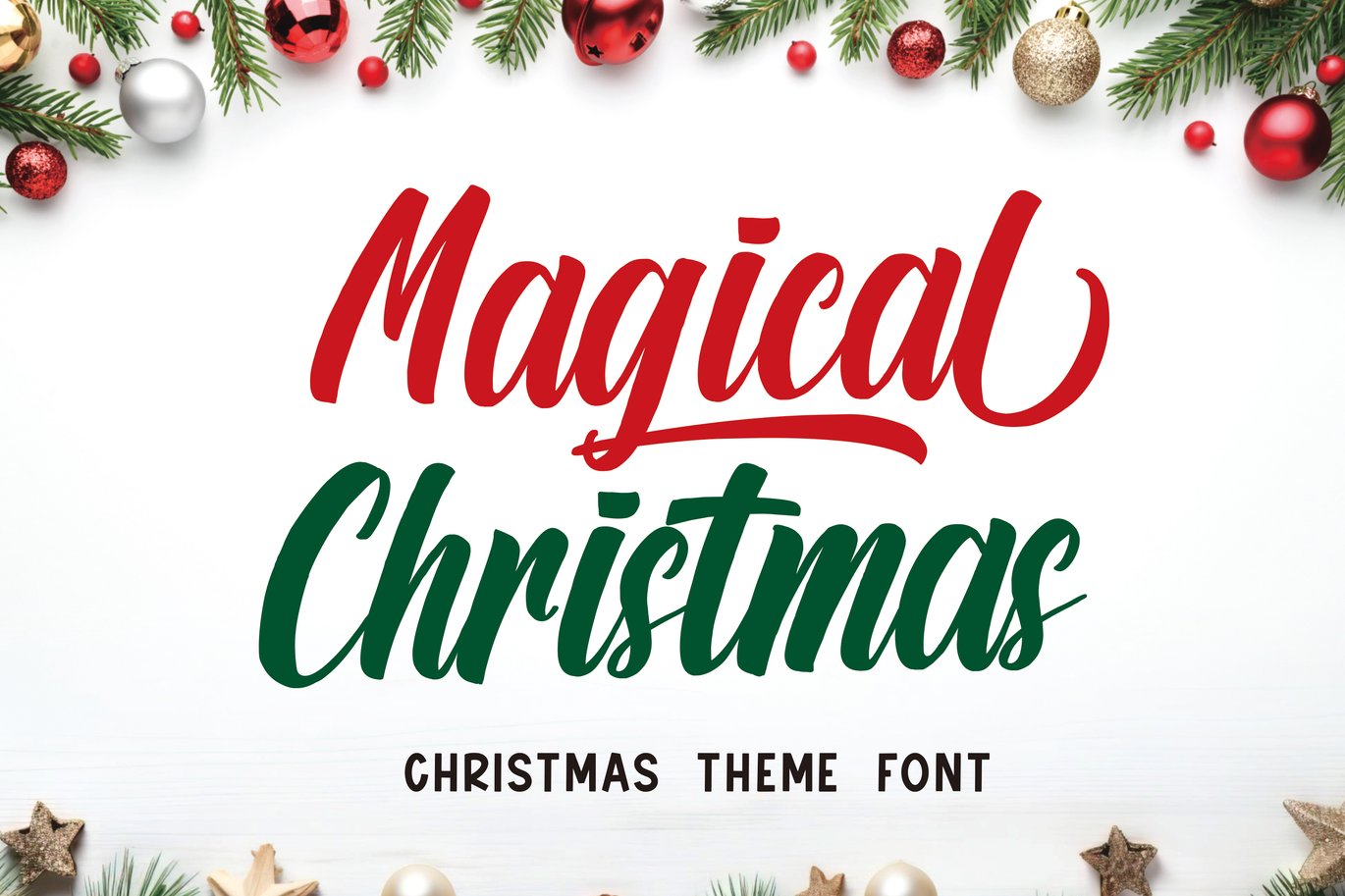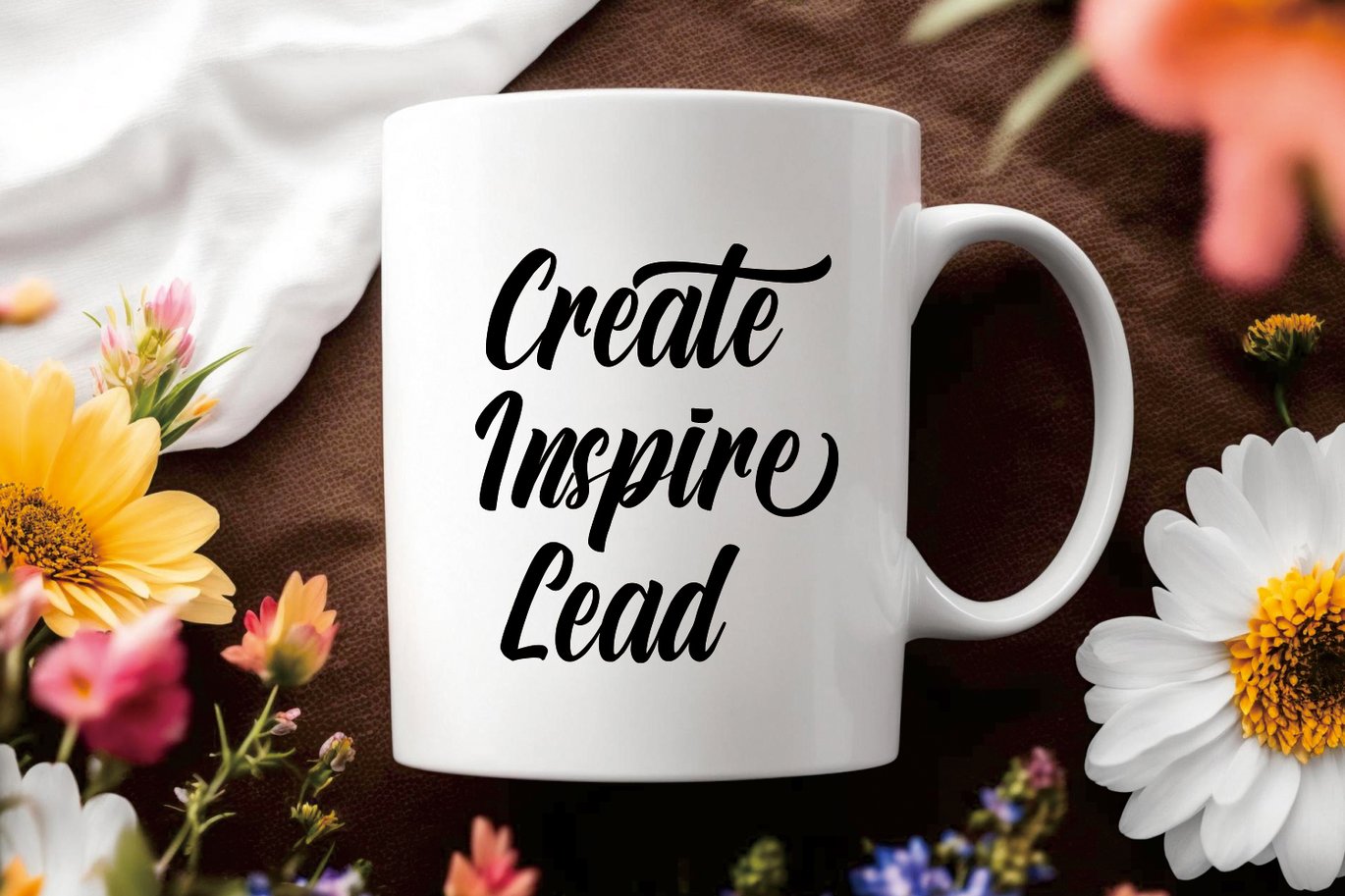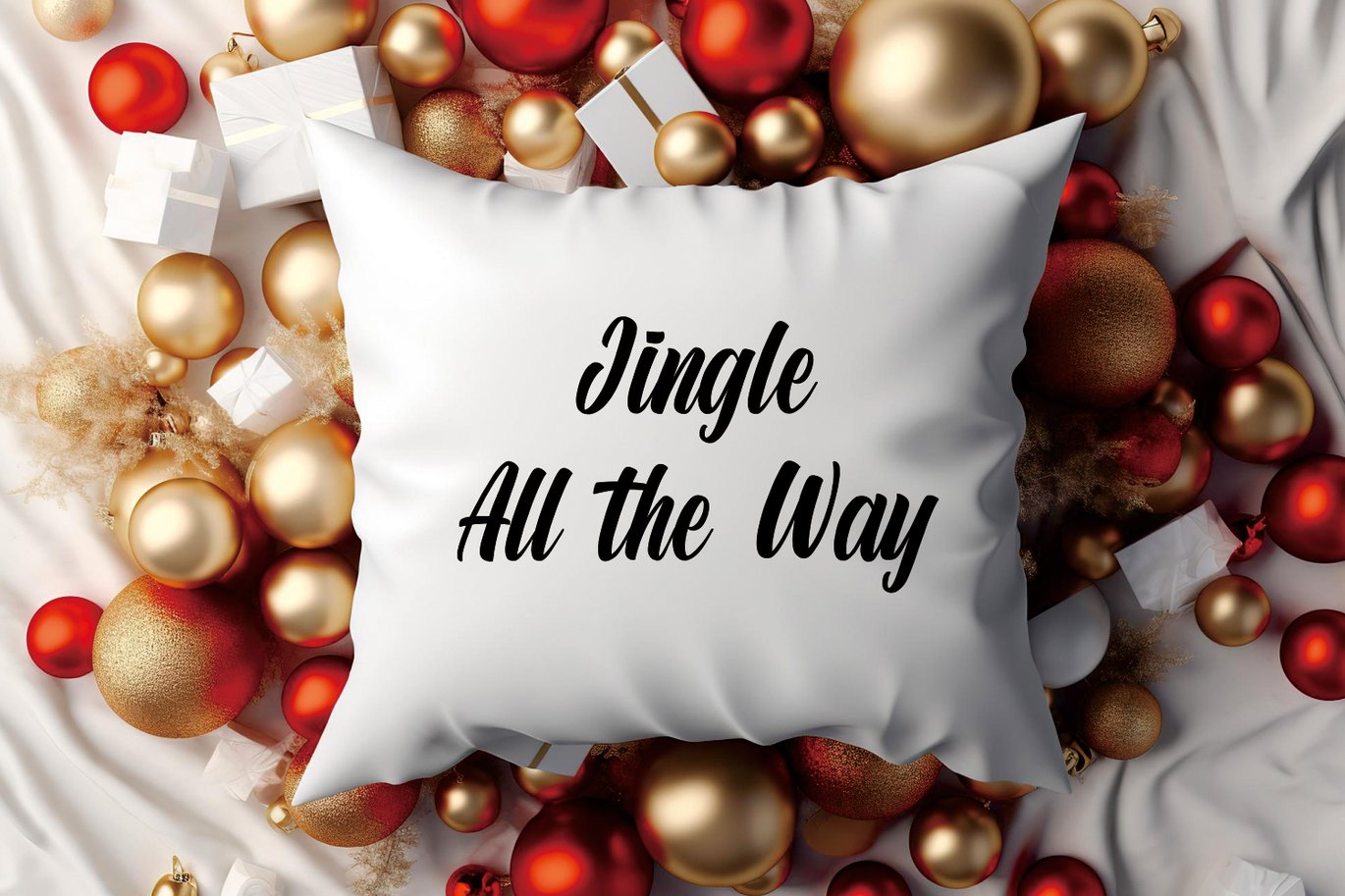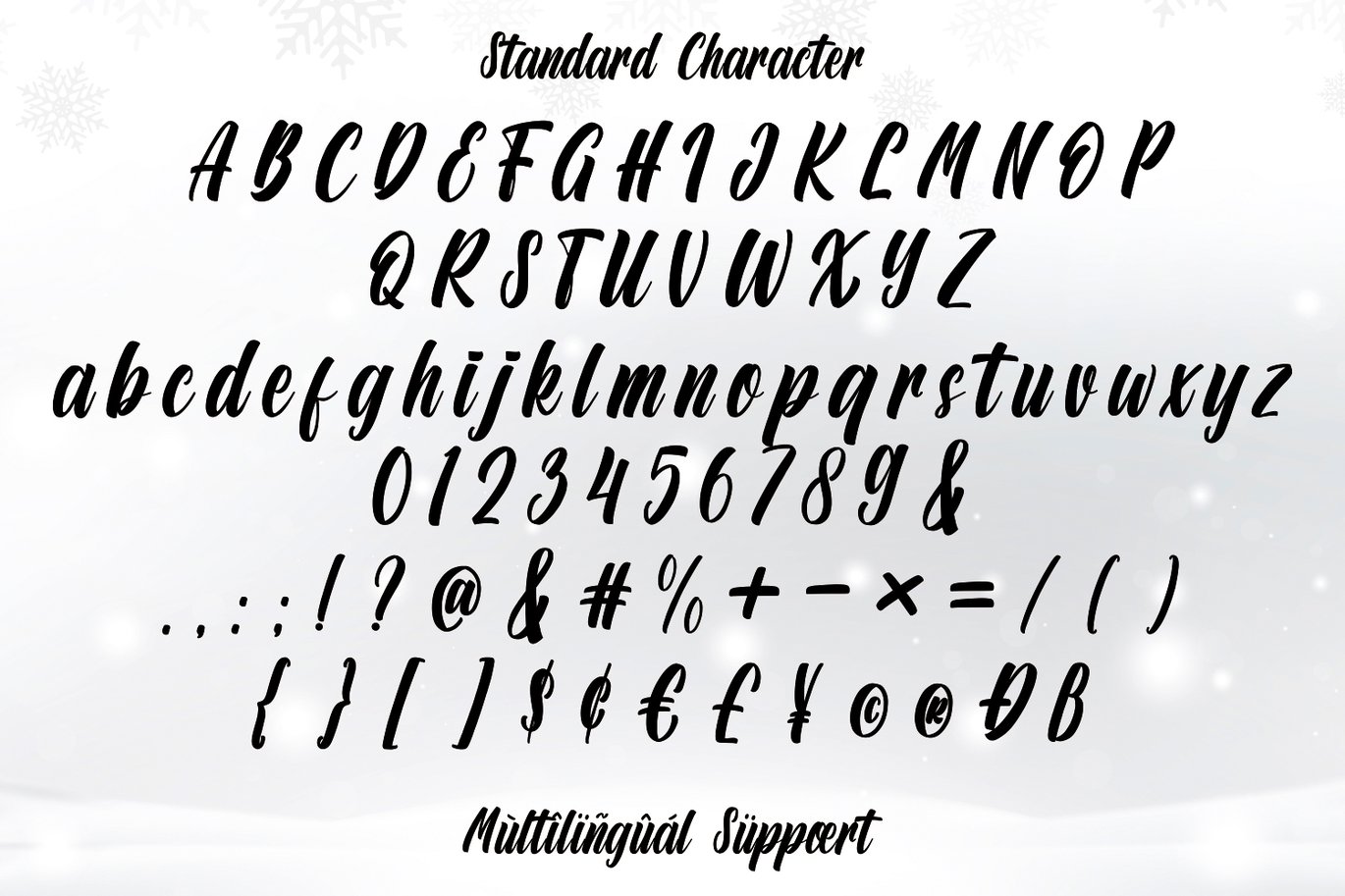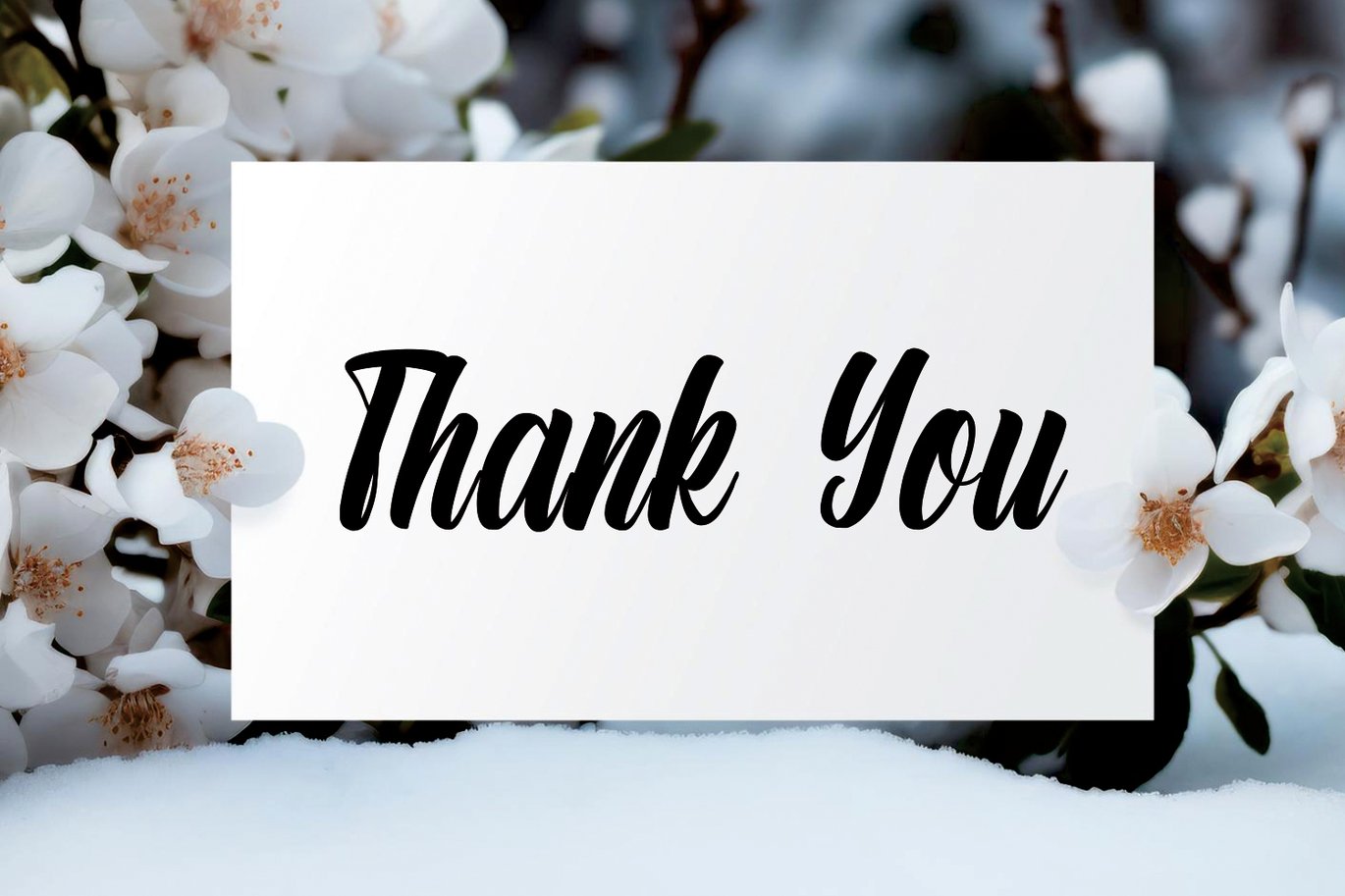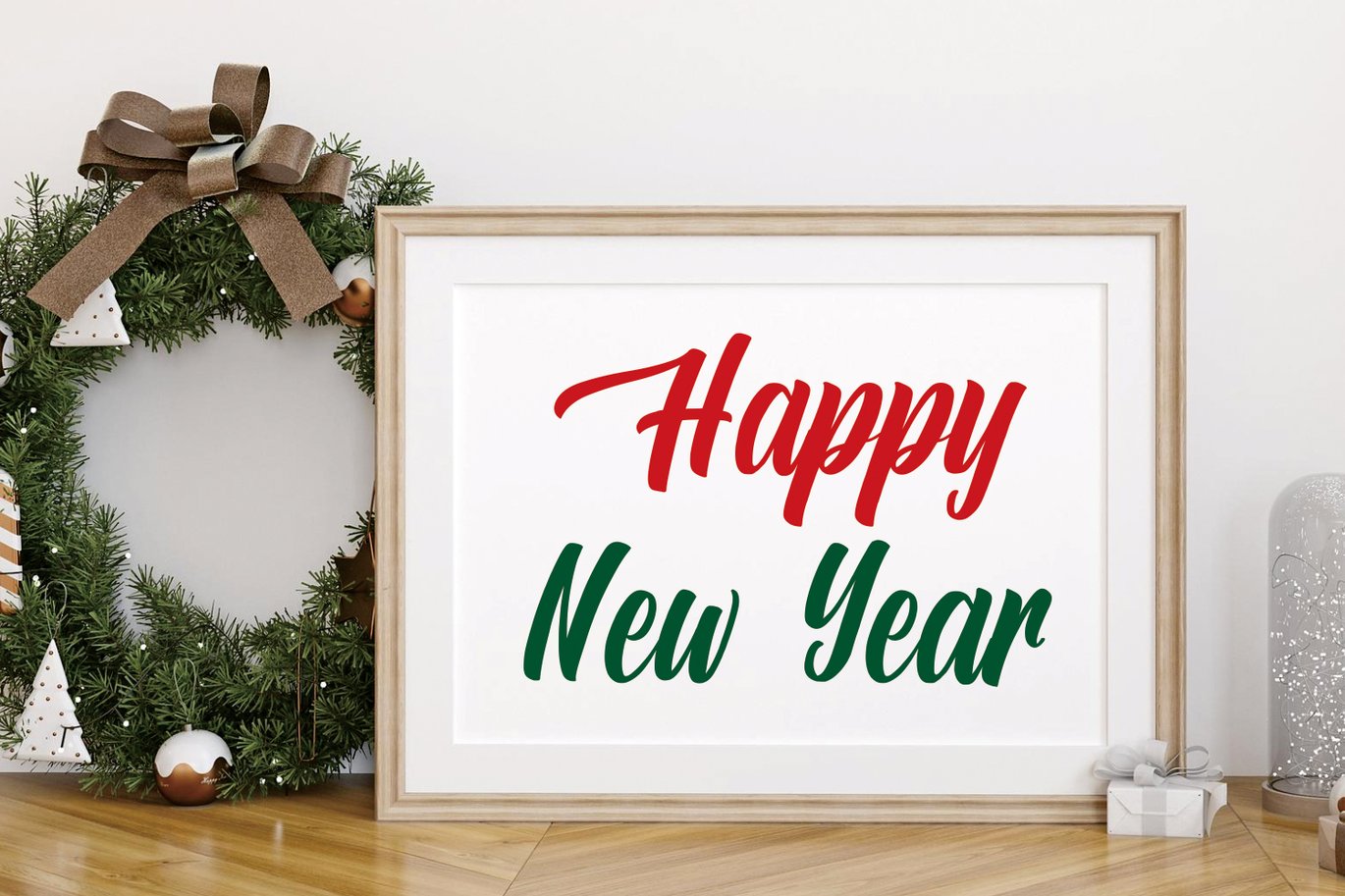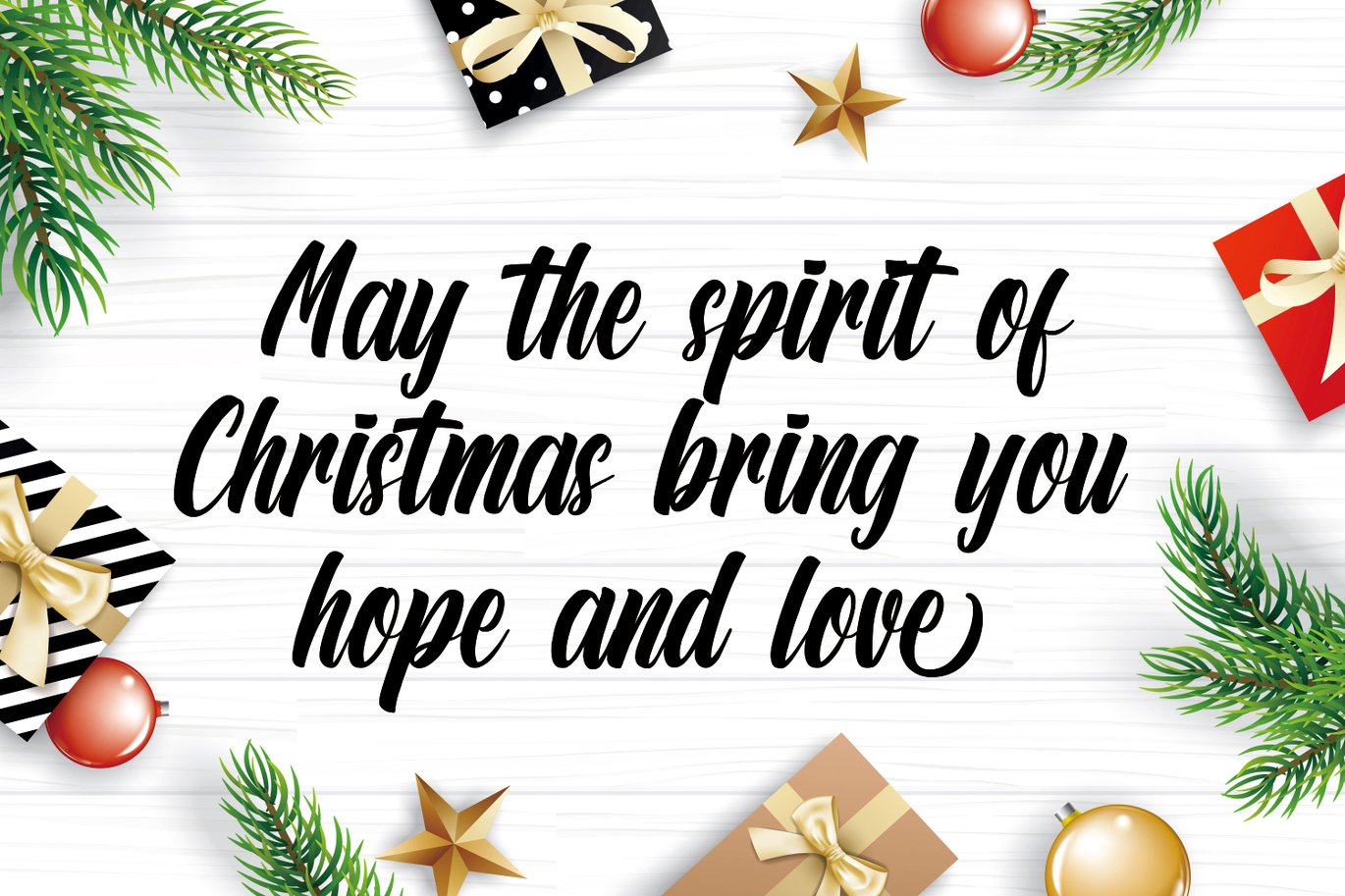
Magical Christmas Font
The Magical Christmas font embodies the essence of the holiday season through its enchanting script and handwritten style. Crafted with whimsical strokes and delicate curves, this font captures the festive spirit of Christmas, Thanksgiving, and the joyous winter holidays. Its elegant yet playful design evokes feelings of warmth, celebration, and gratitude.
Perfect for creating charming holiday-themed crafts, greeting cards, and decorative elements, this font adds a touch of magic to any project. Whether used for craft lettering, embroidery, or festive decorations, the Magical Christmas font infuses a sense of cheer and coziness, making it ideal for spreading seasonal joy.
With its intricate details and graceful flow, this font brings to life the essence of Christmas, exuding a delightful charm that enhances the holiday atmosphere. Its versatility and cheerful demeanor make it a wonderful choice for conveying heartfelt messages and adorning various holiday-themed creations, radiating the spirit of the festive season in every stroke.